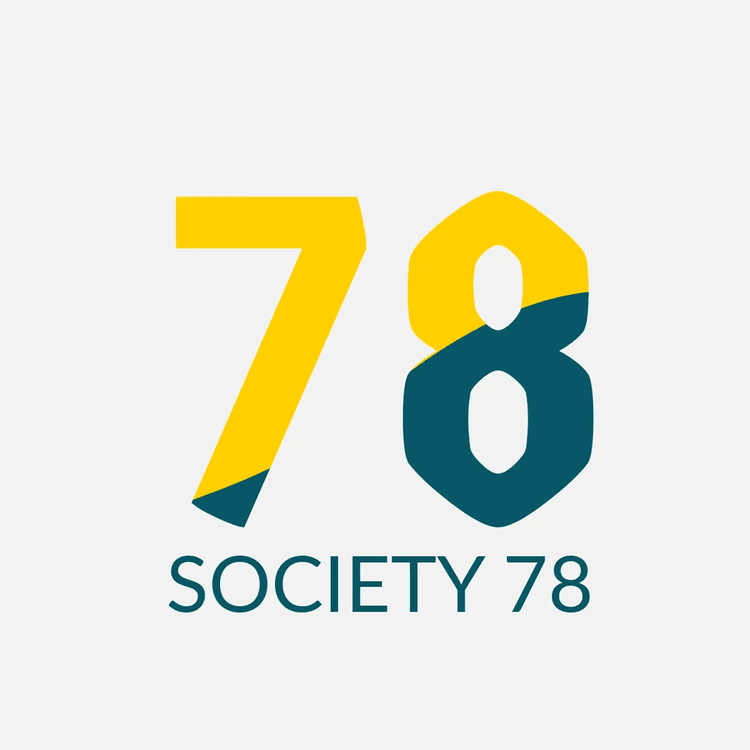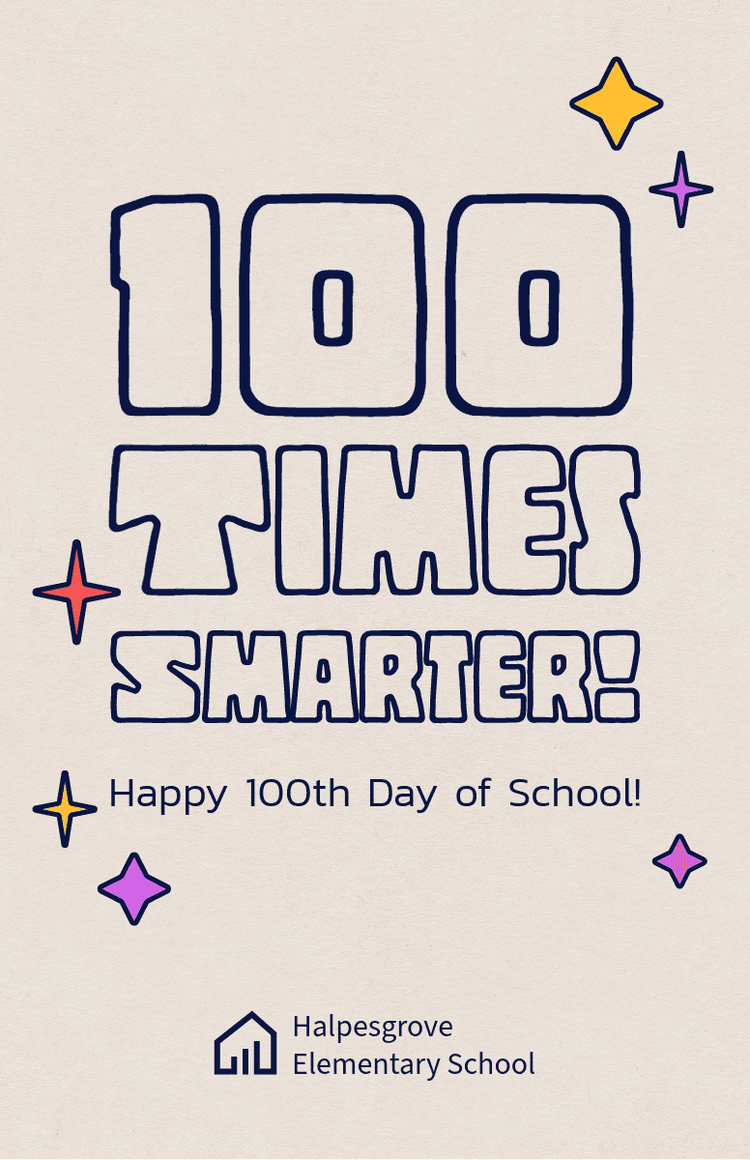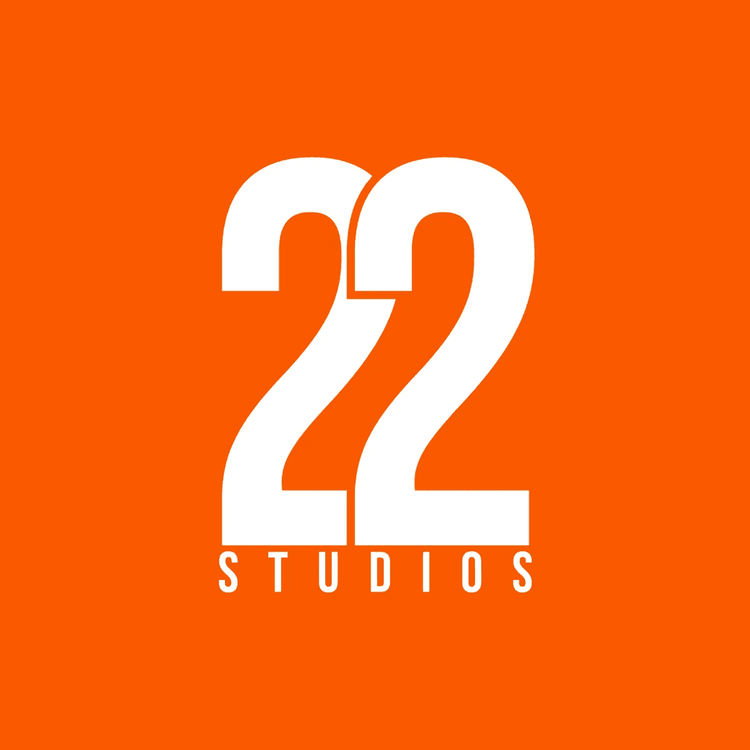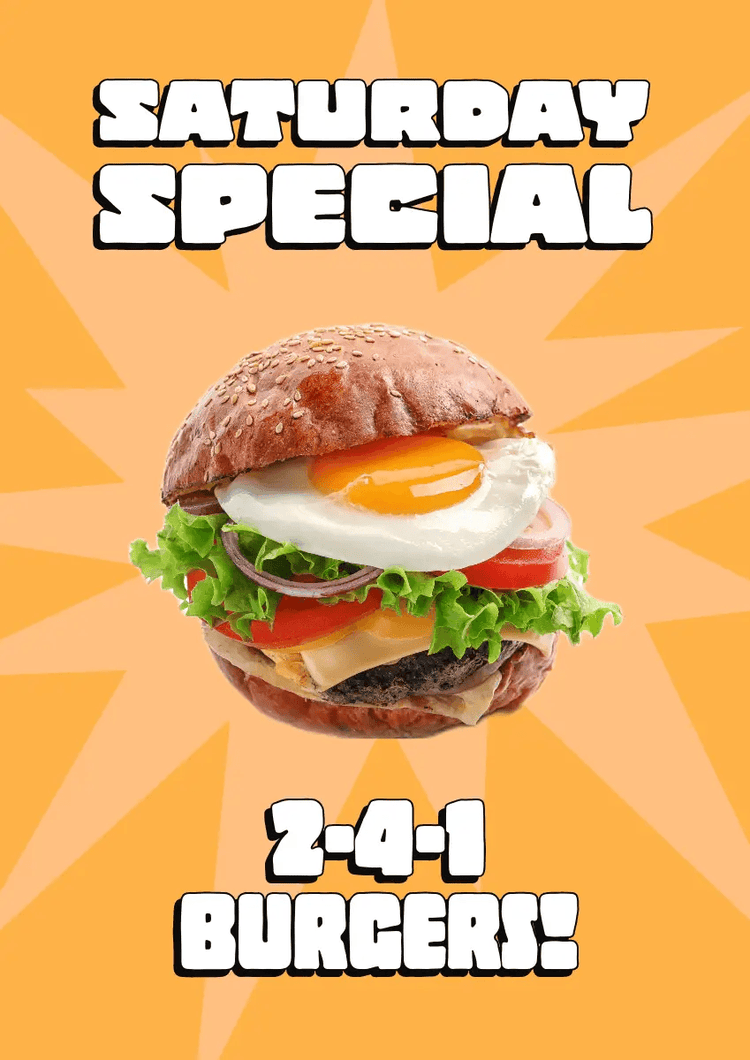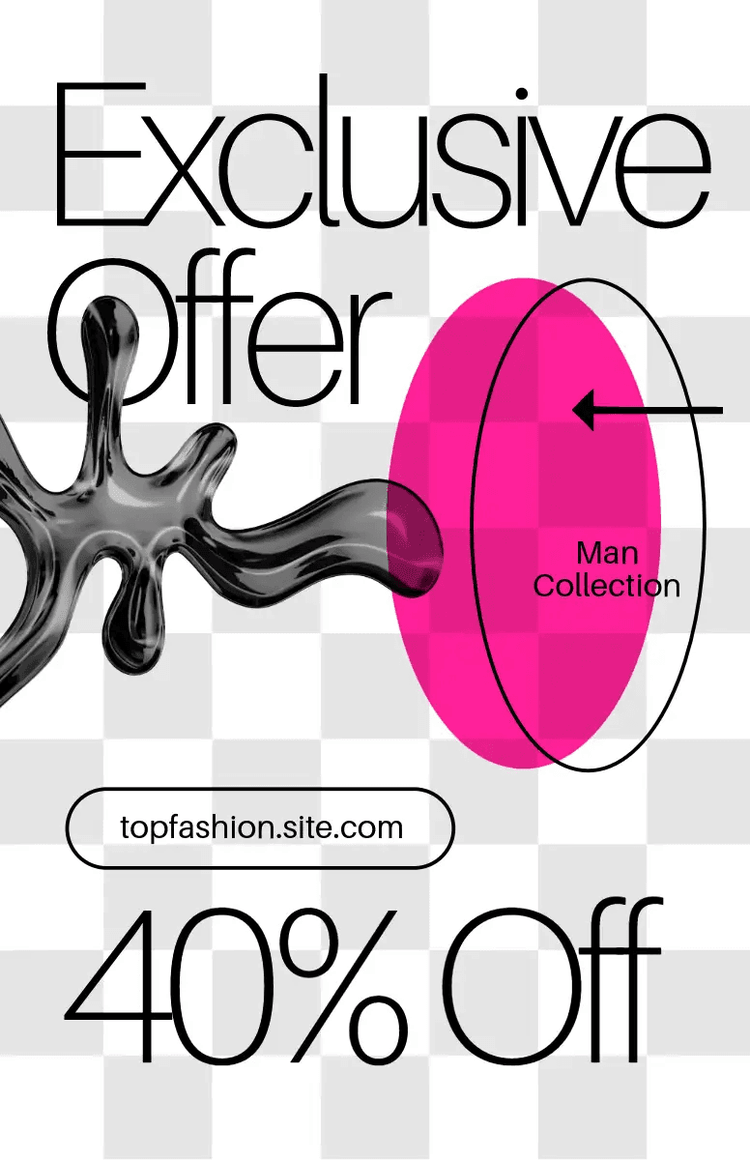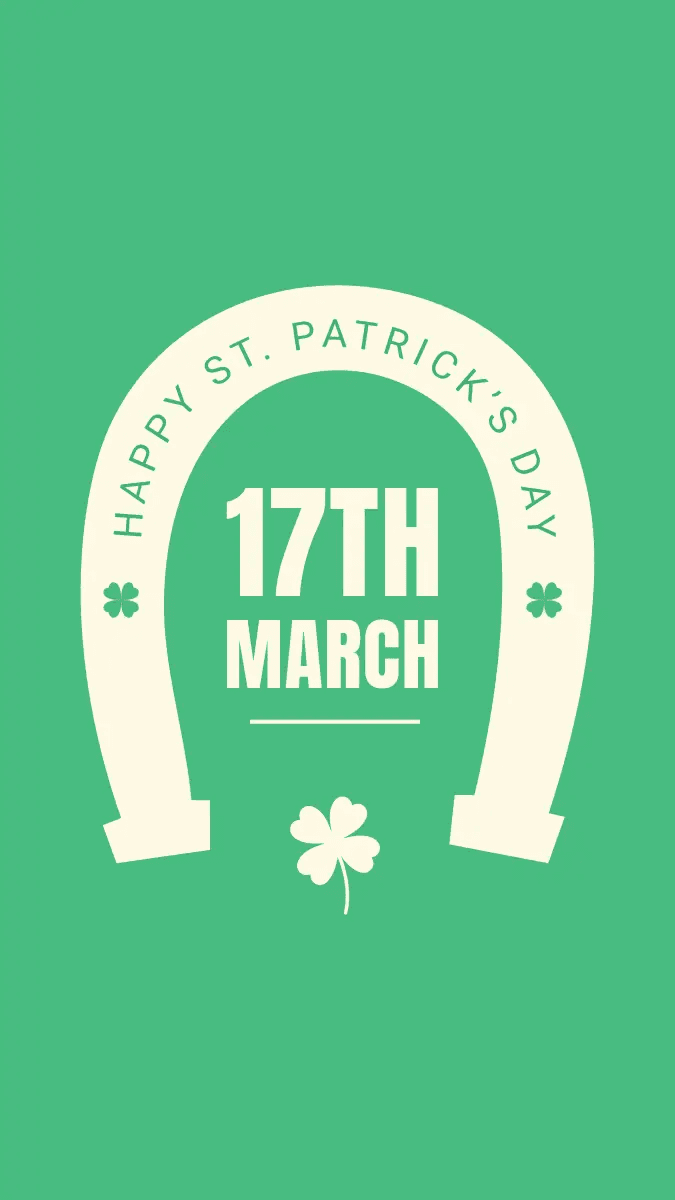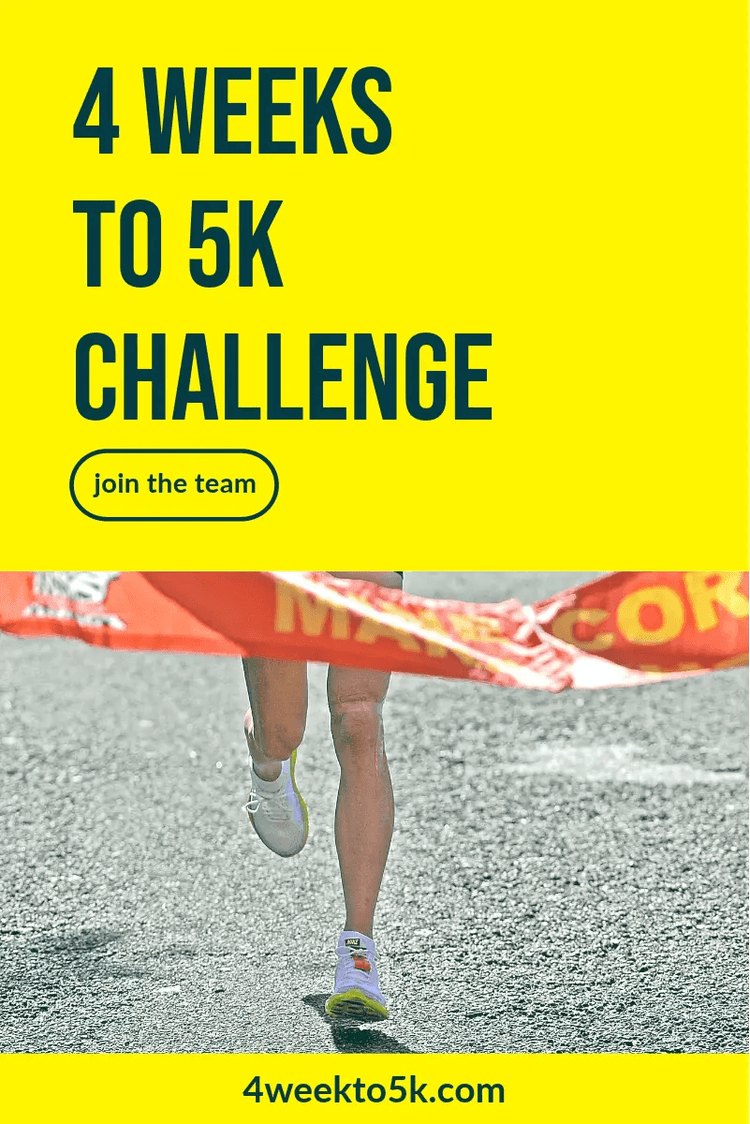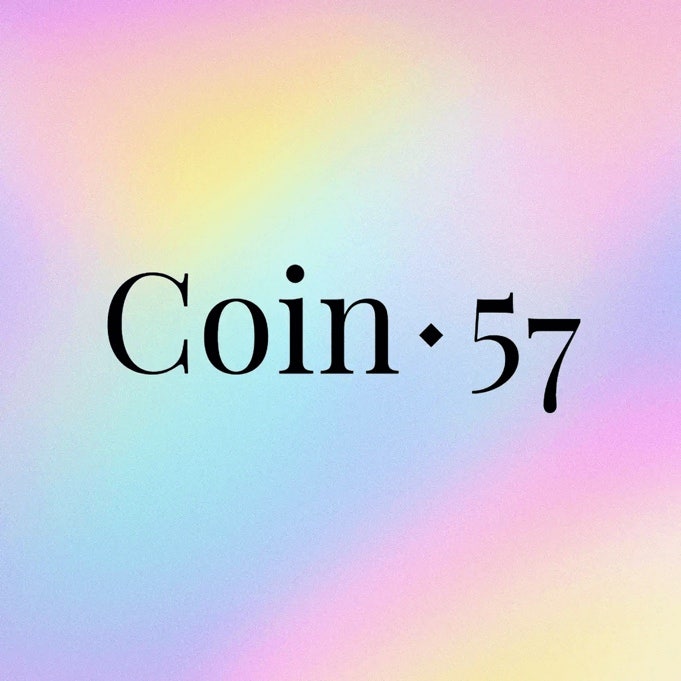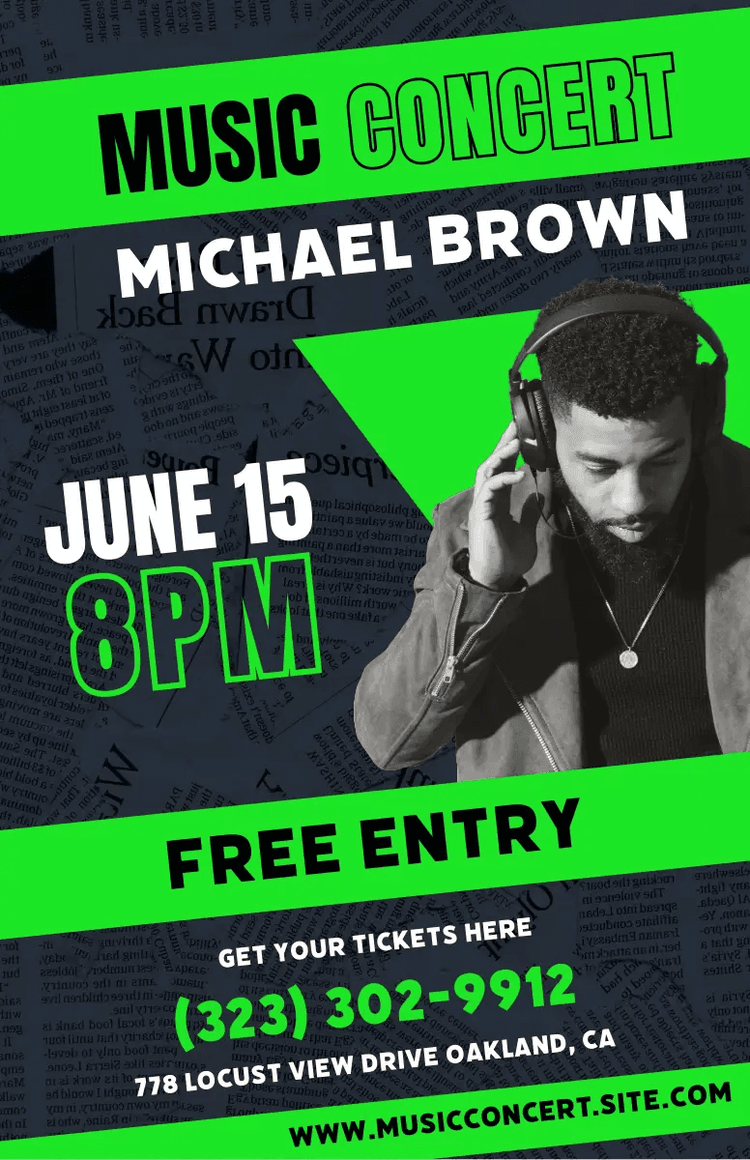
Mastering number fonts: 10 free number fonts for your design project.
Fonts are an expressive part of any design, and if you’re using a lot of numbers or want your figures to stand out, it’s important to choose a font with a great or even unique number font for the job.
Most fonts include numerical digits from 0 to 9, however not all fonts are born equal. It may be tempting to use a font for both your letters and numbers. However, you may find that the font’s numerical style doesn’t seem to match the design of the letters. In these instances, it's best to find a font that fits your purpose and includes a stunning numerical design.
Essential number fonts for posters and flyers.
There are several great options for fonts that fit on posters and flyers. Let’s look at a few different font types.
Clean number fonts
If you want a simple style, try looking for a font that could be described as clean, with minimal stylistic flourishes, and typically in the sans serif or mono categories. These are great for communicating important details on posters and flyers with a tone of seriousness and a more easy-to-read style. Explore 84 clean font families on Adobe Express.
School number fonts
School fonts are a fun way to communicate; they can inspire a quirky, casual, or even silly mood, whilst still conveying the important message. Some fonts may look handwritten whilst others bring a soft style to typewriter, capitalisation fonts, and block fonts. Explore 48 school font families on Adobe Express.
Art Deco number fonts
This is a distinctive style and perfect for movie posters or flyers promoting anything arty, cultural, and elegant. Explore 35 Art Deco font families on Adobe Express.
Cursive number fonts
These fonts are great for bringing some artistic expression to your poster or flyer. Often, the numerical digits will be easy to read, despite the alphabet letters employing script and serif styles. Explore 65 cursive font families on Adobe Express.
Number fonts for logos.
Logos are a cornerstone of your brand. Your customers will be encountering them everywhere from menus and receipts to your website and product packaging. Logos help your business stand out and help your customers identify your brand instantly, fostering the connection between you and them. Number fonts in logos, therefore, are really important. Read in more detail about how to choose a number font for a logo.
To find the perfect font for your numericals, you might choose to use the same font as the alphabet letters in your logo (if your logo includes letters). Or you may choose a unique font for your numericals and your letters. Adobe Express has thousands of free logo templates, which include fonts that fit various business types, giving you great inspiration for your perfect logo font.
Creative use of text effects to create unique number designs.
Once you’ve found the ideal font for your logo or for your business marketing materials, it’s time to get creative. You can use Adobe Express to quickly and easily edit your number designs so they turn out just right. Creative effects include shadows, borders, or colour changes. You can explore all of these in Adobe Express.
If you are looking to create a table plan for your wedding business or advertise your next event, you can explore hundreds of different fonts and designs on Adobe Express. Check out the poster templates to see how the professional designers at Adobe Express have used various text effects to make each poster truly unique.
Check out these examples of fonts on posters from Adobe Express.